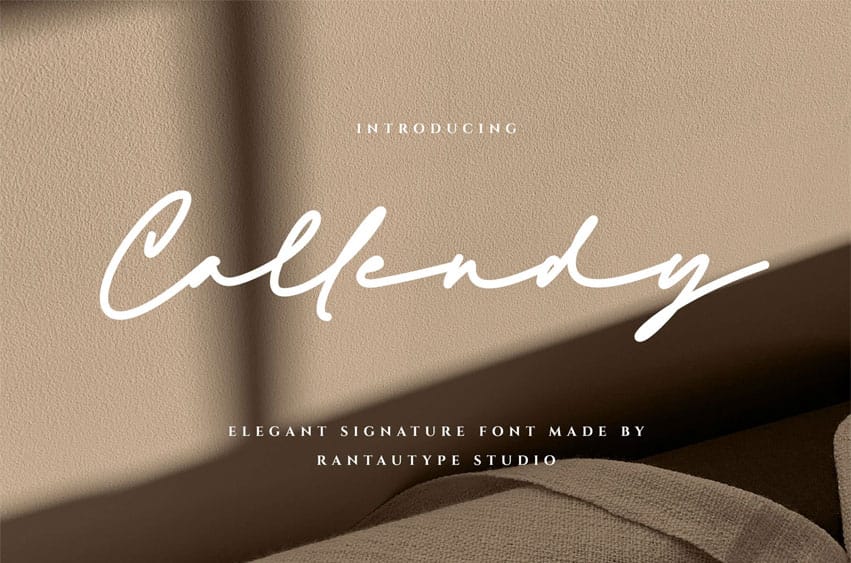
Callendy Font
Callendy Font is an elegant signature font made with passion by Rantautype Studio. Callendy comes with natural fluid strokes of a personal touch. Callendy is a perfectly choice for any creative endeavor, creating, modern, chic, lifestyle design such as logotype, title, cover, branding, invitations, wedding designs, display and magazine, social media posts, advertisements, printed quotes, product packaging, corporate brand, product designs, labels, photography, watermarks, special events and any other project with modern touch.